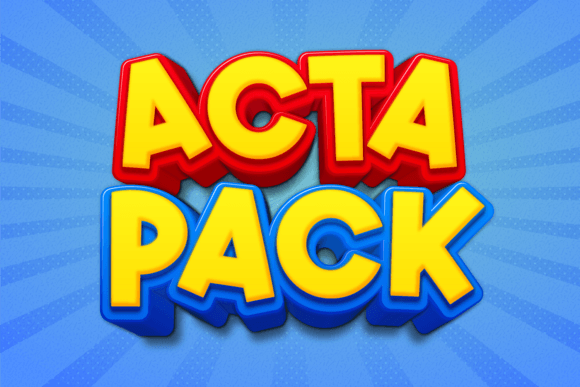
Unleash Your Creativity with Acta Pack Font: The Ultimate Display Font for Amazing Designs
Are you tired of using the same old fonts for your designs? Do you want to add a touch of uniqueness and playfulness to your projects? Look no further than Acta Pack Font, a thick and playful display font that’s perfect for making your designs truly amazing. In this article, we’ll explore the features and benefits of Acta Pack Font, and show you how to make the most of this incredible font.
What is Acta Pack Font?
Acta Pack Font is a display font designed to add a touch of playfulness and creativity to your designs. Its thick and bold strokes make it perfect for headlines, titles, and other display purposes. The font is highly versatile and can be used for a wide range of projects, from kid-related designs to advertising materials, product packaging, posters, cards, and more.
Key Features of Acta Pack Font
- Thick and Playful Strokes: Acta Pack Font features thick and playful strokes that give it a unique and eye-catching look.
- Highly Versatile: The font is highly versatile and can be used for a wide range of projects, from kid-related designs to advertising materials.
- Easy to Read: Despite its bold strokes, Acta Pack Font is easy to read, making it perfect for headlines and titles.
- Unique and Creative: Acta Pack Font is a one-of-a-kind font that can add a touch of uniqueness and creativity to your designs.
Benefits of Using Acta Pack Font
Using Acta Pack Font can bring numerous benefits to your designs. Here are some of the advantages of using this incredible font:
- Adds Creativity and Uniqueness: Acta Pack Font can add a touch of creativity and uniqueness to your designs, setting them apart from the rest.
- Perfect for Kid-Related Projects: The font’s playful strokes make it perfect for kid-related projects, such as children’s books, posters, and cards.
- Increases Readability: Acta Pack Font’s bold strokes make it easy to read, even from a distance, making it perfect for headlines and titles.
- Versatile and Flexible: The font can be used for a wide range of projects, from advertising materials to product packaging.
How to Use Acta Pack Font
Using Acta Pack Font is easy and straightforward. Here are some tips on how to make the most of this incredible font:
- Use it for Headlines and Titles: Acta Pack Font is perfect for headlines and titles, where its bold strokes can make a big impact.
- Experiment with Different Colors and Sizes: Experiment with different colors and sizes to make the most of Acta Pack Font’s unique strokes.
- Pair it with Other Fonts: Pair Acta Pack Font with other fonts to create a unique and creative look.
Tips and Tricks for Using Acta Pack Font
Here are some additional tips and tricks for using Acta Pack Font:
- Use it for T-Shirt Designs: Acta Pack Font is perfect for t-shirt designs, where its bold strokes can make a big impact.
- Use it for Posters and Cards: The font is also perfect for posters and cards, where its playful strokes can add a touch of creativity.
- Use it for Advertising Materials: Acta Pack Font can be used for advertising materials, such as billboards and flyers.
- Use it for Product Packaging: The font can also be used for product packaging, where its unique strokes can make a product stand out.
In conclusion, Acta Pack Font is an incredible display font that can add a touch of creativity and uniqueness to your designs. Its thick and playful strokes make it perfect for a wide range of projects, from kid-related designs to advertising materials. With its ease of use and versatility, Acta Pack Font is a must-have font for any designer looking to take their designs to the next level.